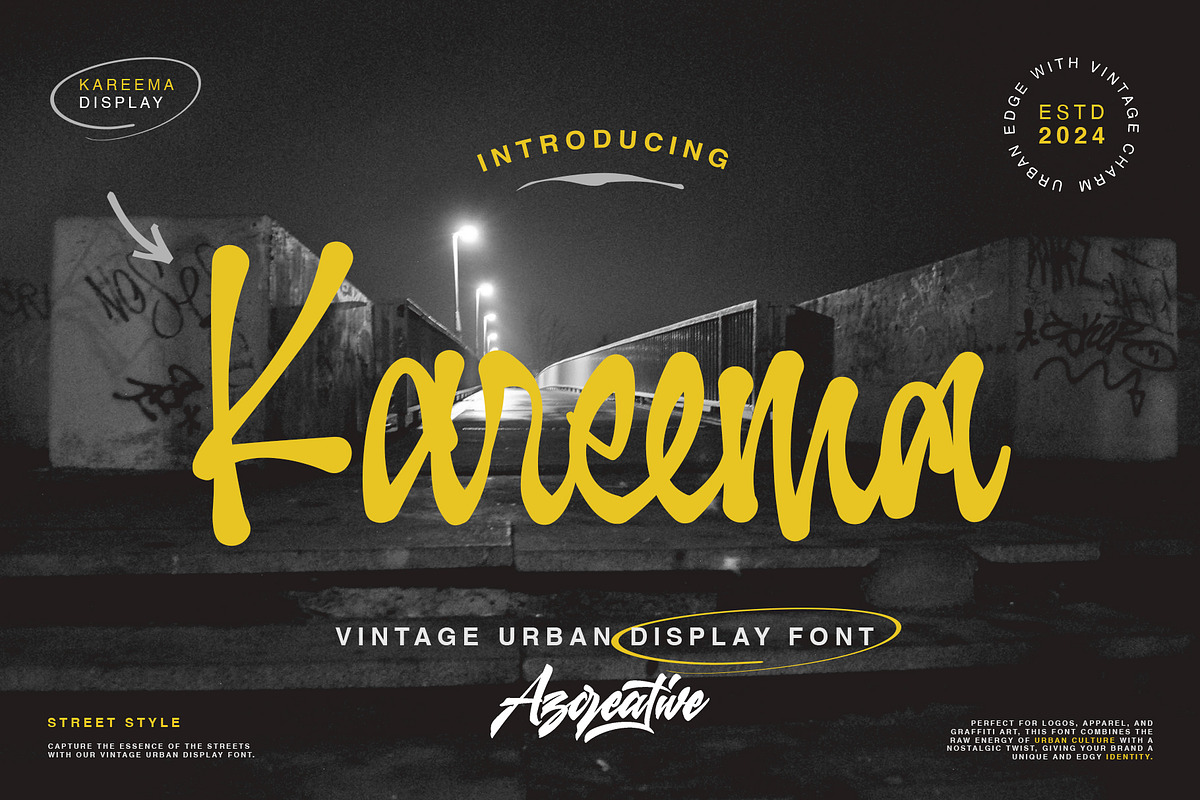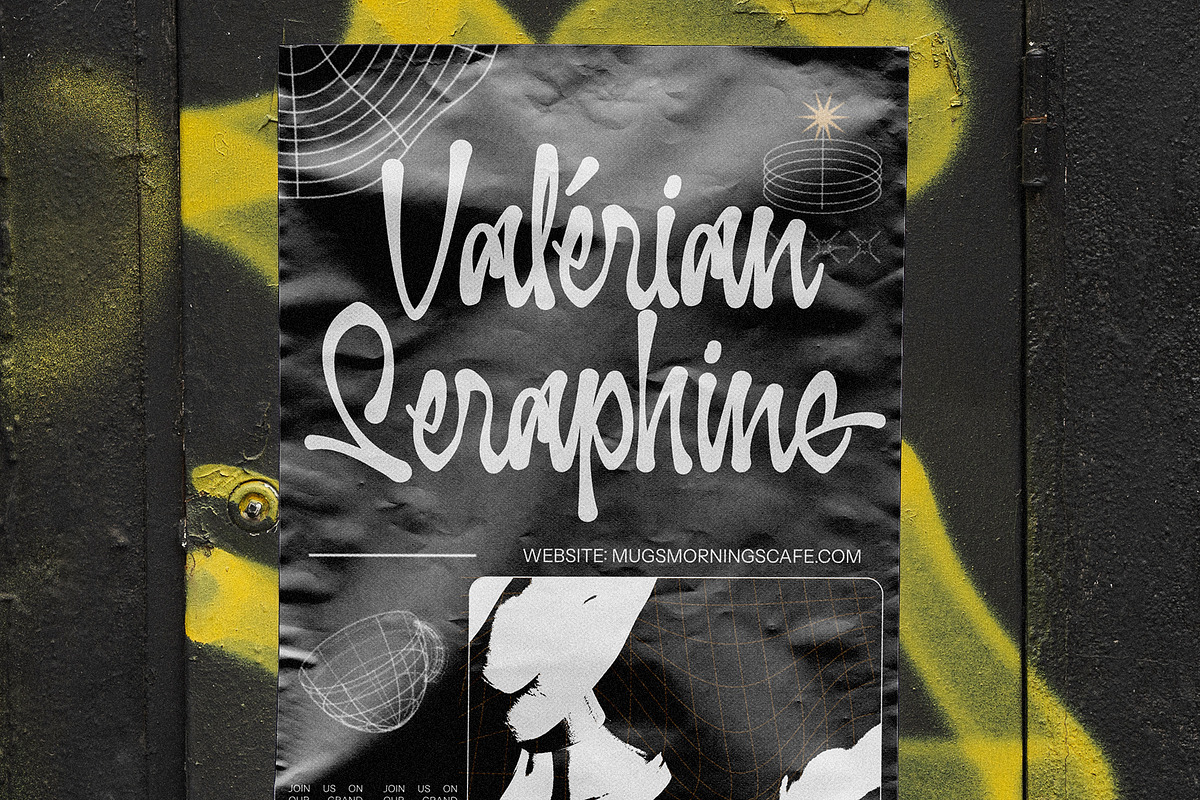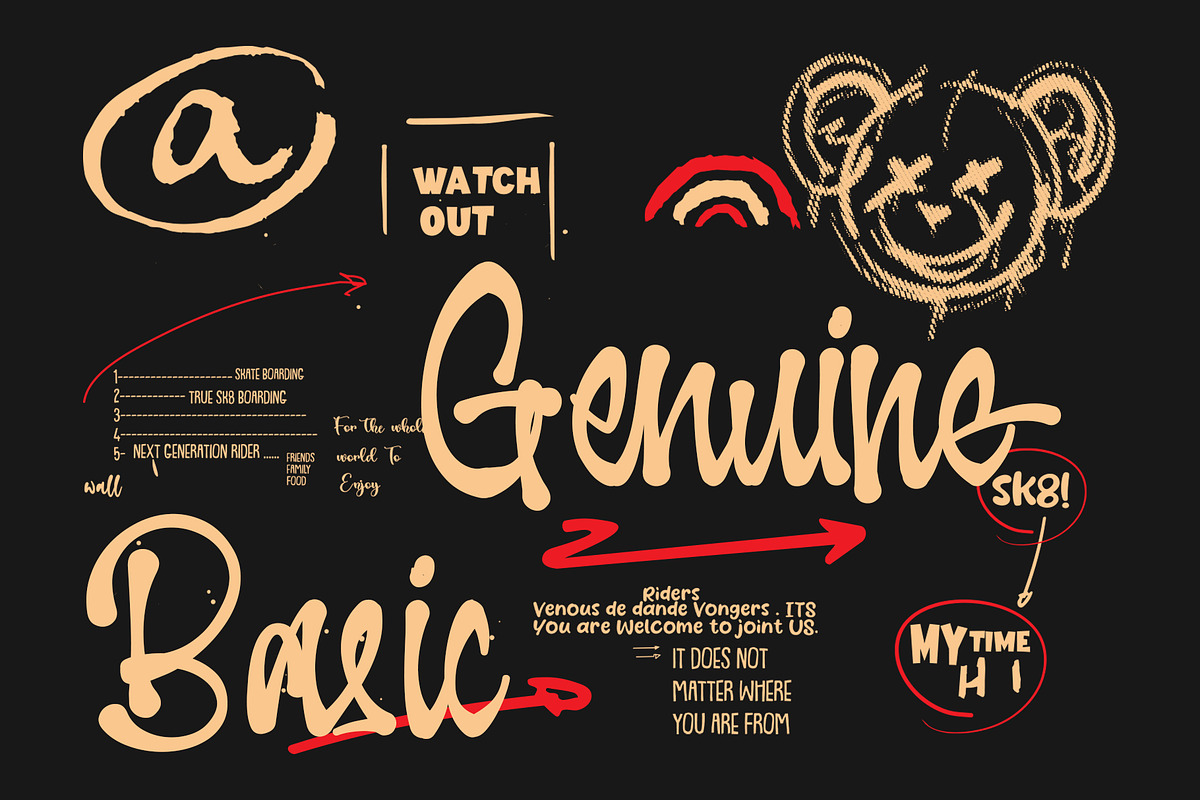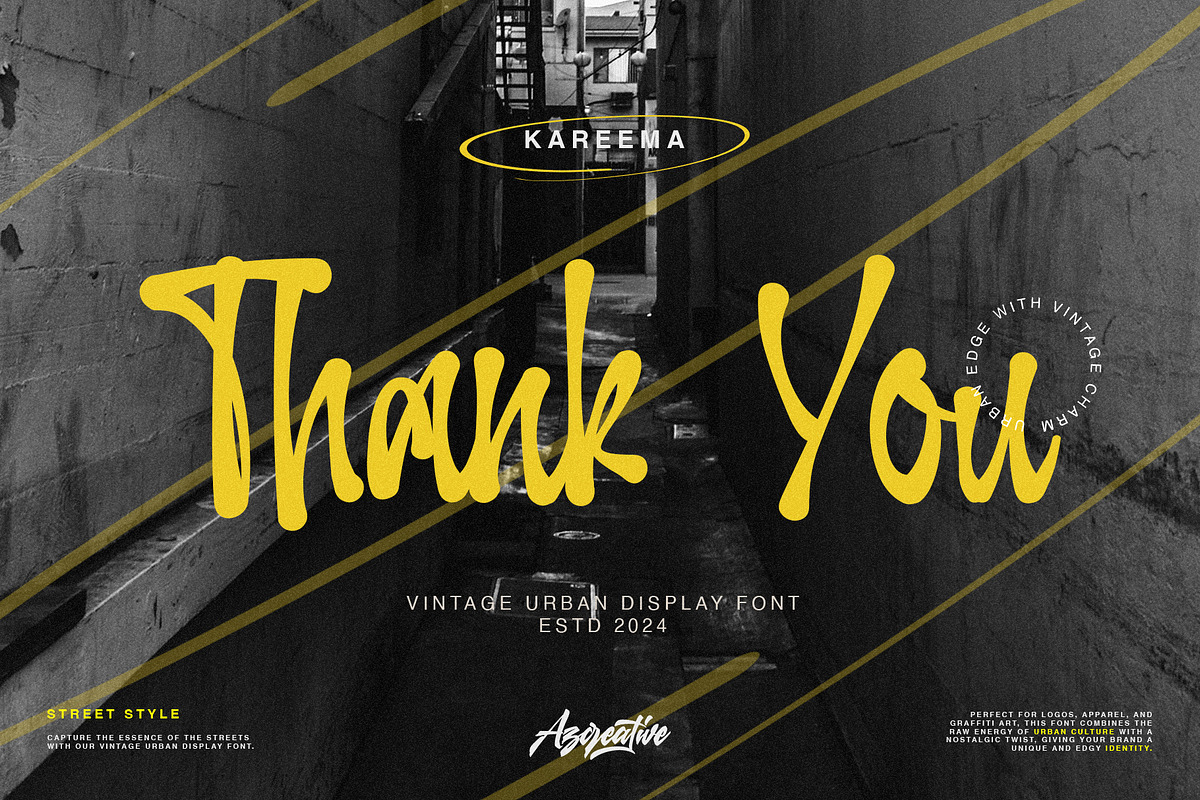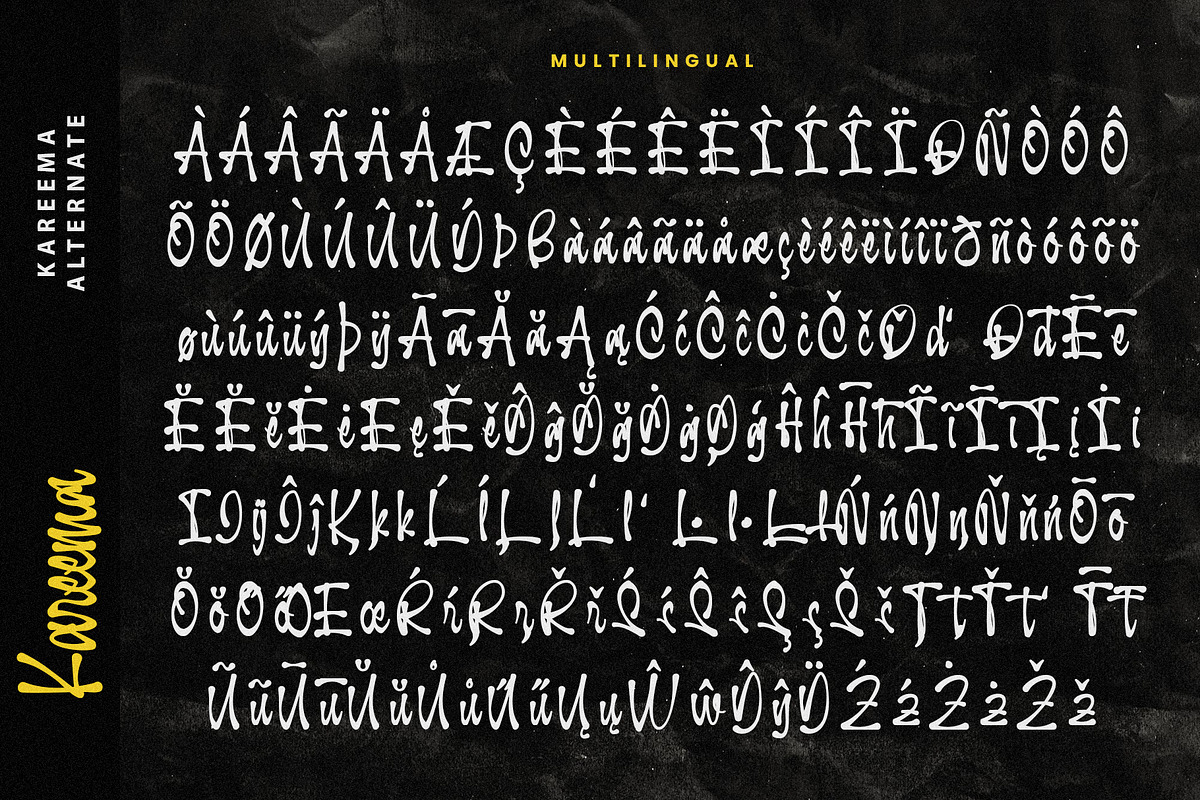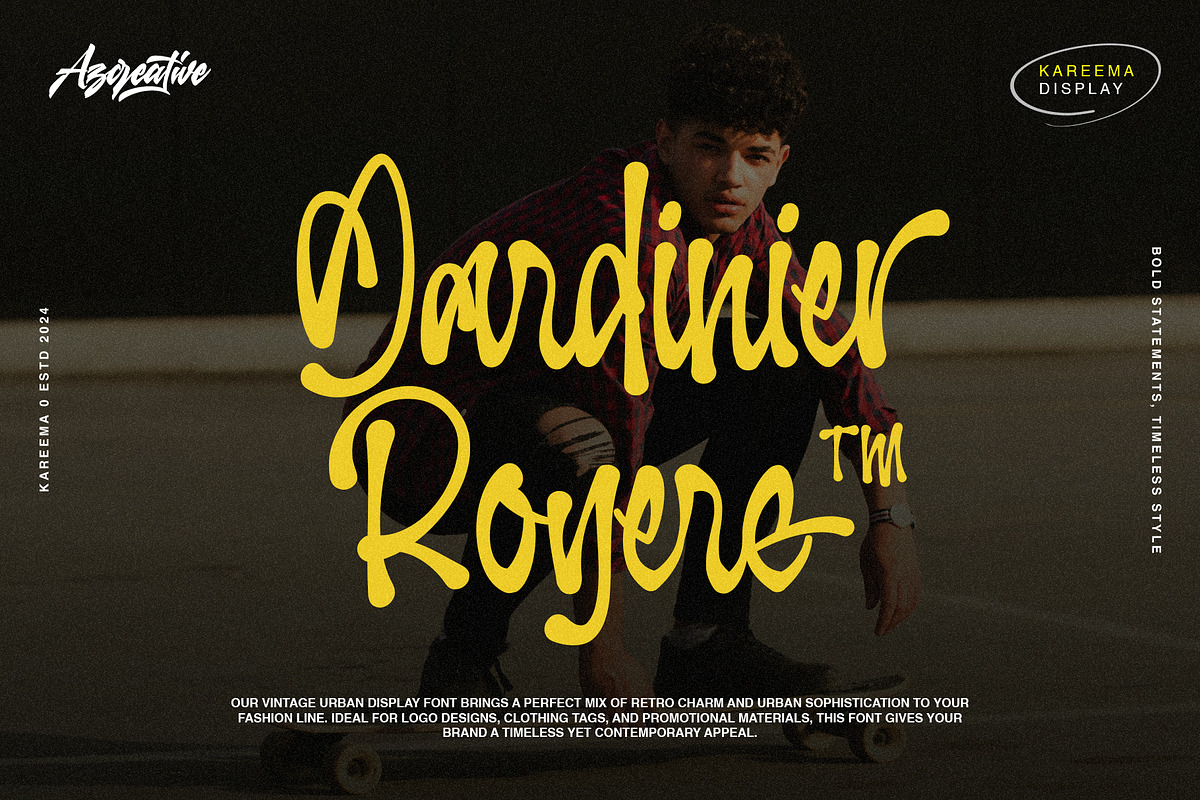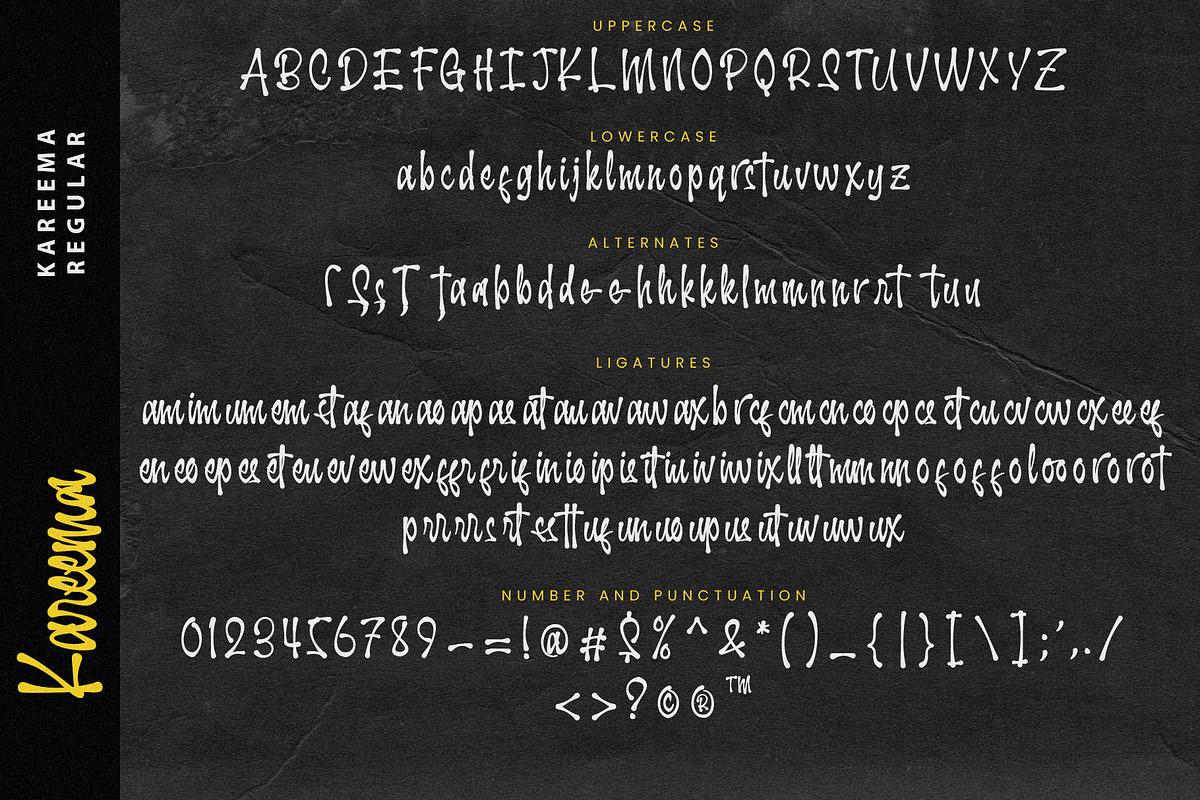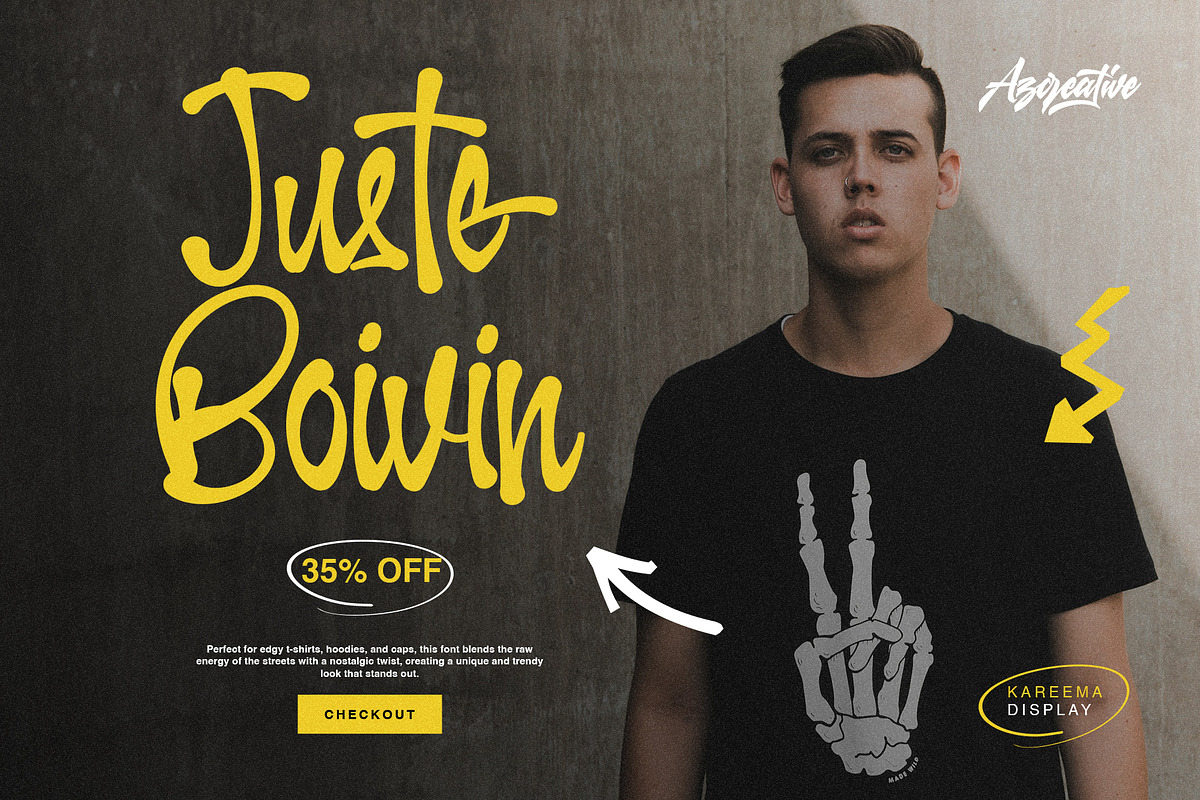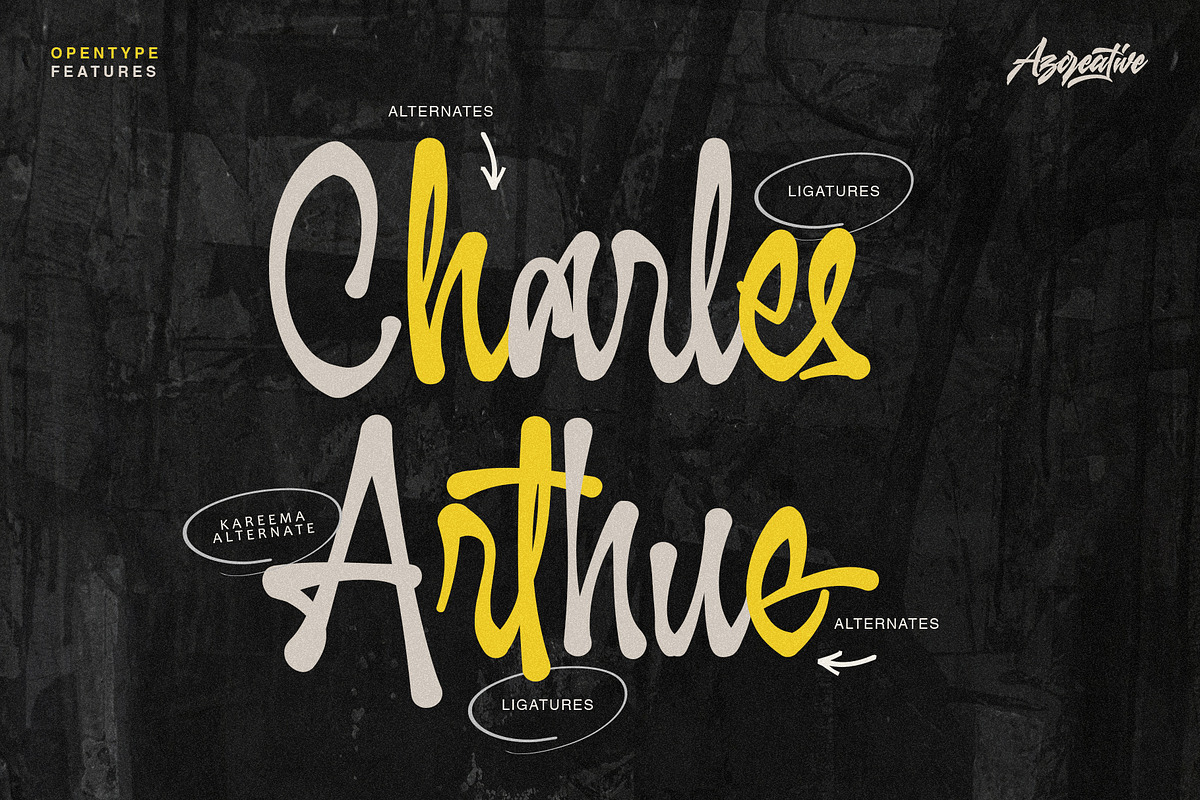
Kareema - Vintage Urban Display Font
Hey there, design lovers! Meet Kareema, your new go-to vintage urban display font that's all about blending old-school charm with a fresh, modern twist.
Why Kareema Rocks:
- Unique & Eye-Catching Style: Kareema combines vintage vibes with urban flair, making your text stand out in the coolest way. Perfect for posters, branding, packaging, and social media—this font's got your back for any project.
- Ultimate Flexibility: Kareema comes with both alternate and regular versions, with each alternate character crafted to support multiple languages. This makes Kareema super versatile and ready for any design challenge.
- Smooth & Natural Ligatures: With ligatures like fr, ffr, ffi, fi, fl, ffl, st, lt, tt, oo, ee, af, ef, em, en, rs, rr, ss, tt, rt, Kareema ensures your text flows seamlessly. It gives your design a natural and harmonious look.
- User-Friendly: Designed with ease of use in mind, Kareema makes your design process a breeze. Each detail is meticulously crafted to ensure you can unleash your creativity without any technical hassles.
Kareema - More than just a font, it's a blend of art and style.